1. Introduction: Why Handwriting Fonts Matter for Notes
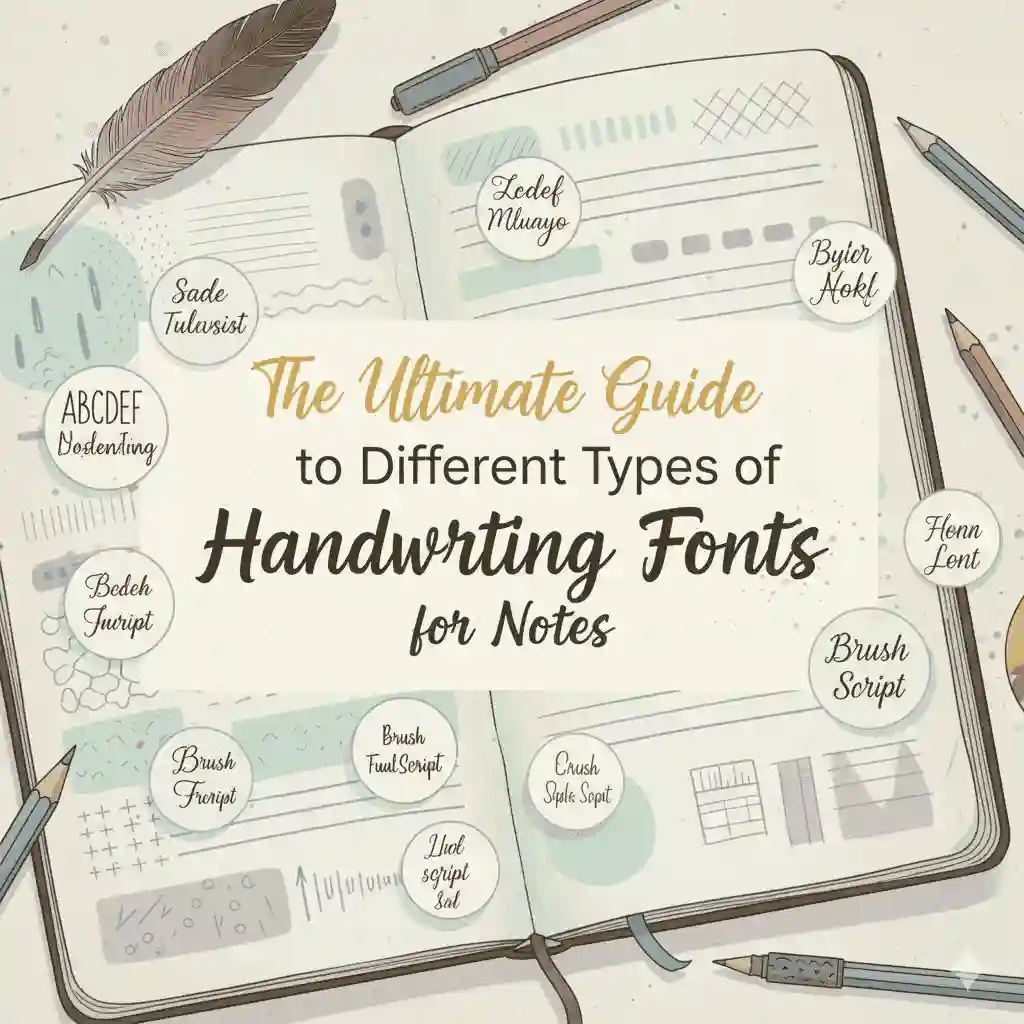
In the digital era, taking notes is no longer limited to pen and paper. Many students, professionals, and creatives now use digital note-taking apps, journals, and planners. Choosing the right handwriting font can make your notes more personal, organized, and visually appealing.
Fonts that mimic real handwriting give your notes a warm, authentic touch while still being easy to read. In this article, we’ll explore the different types of handwriting fonts for notes and help you pick the best one.
2. What Are Handwriting Fonts?
Handwriting fonts are digital fonts designed to replicate the look of natural writing styles. Unlike formal serif or sans-serif fonts, they bring personality and a human touch to your text.
These fonts are often used in:
- Digital planners and journals
- School notes
- Personal diaries
- Creative projects (scrapbooks, invitations, etc.)
3. Different Types of Handwriting Fonts for Notes
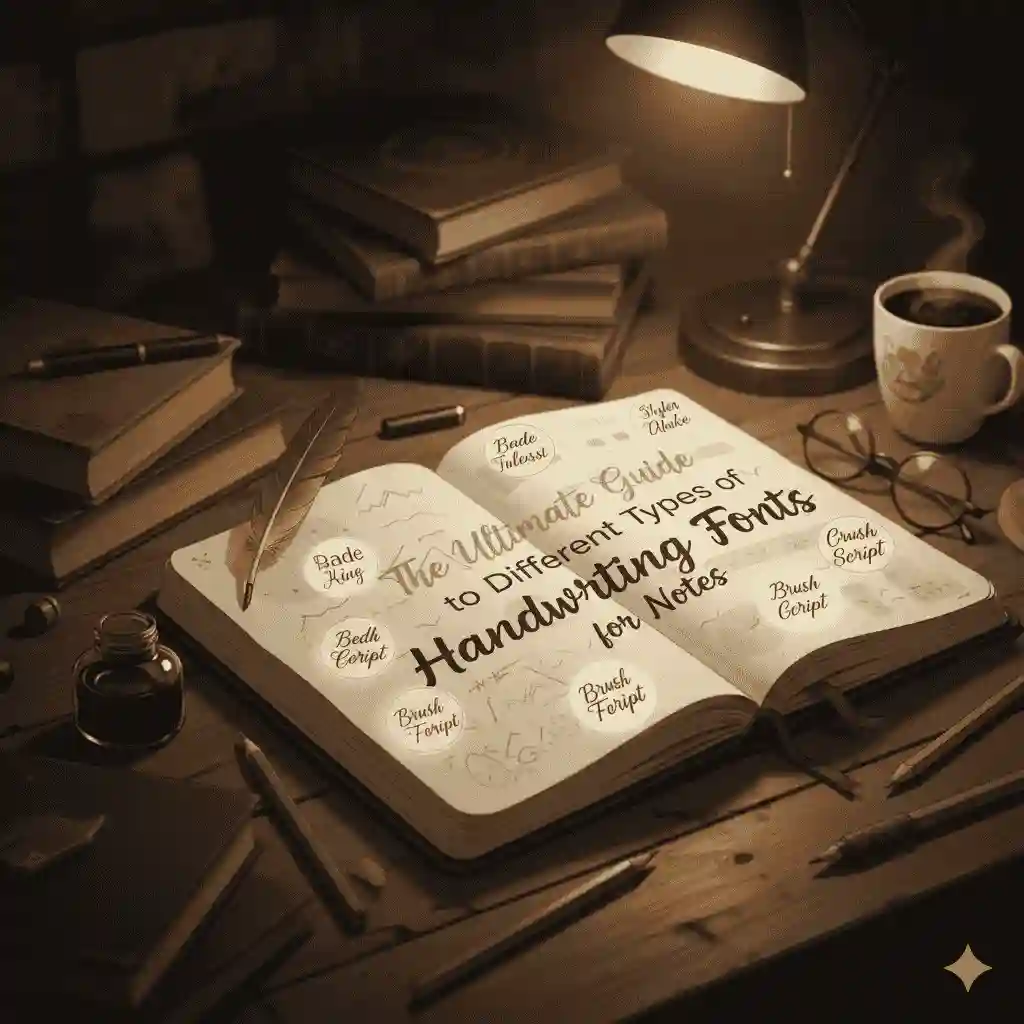
3.1 Script Handwriting Fonts
Script fonts are elegant and flowing, resembling calligraphy. They work well for personal notes, journaling, or adding stylish headers.
- Example: Signature-style script fonts
3.2 Cursive Handwriting Fonts
Cursive fonts connect letters smoothly, making them ideal for realistic handwriting-style notes. They feel natural and personal.
- Example: Traditional cursive school-style handwriting
3.3 Modern Handwriting Fonts
These fonts mix simplicity with a handwritten feel, offering a clean yet casual look. Perfect for digital notes where readability is important.
- Example: Minimal and rounded handwritten styles
3.4 Calligraphy-Inspired Fonts
Calligraphy fonts are more decorative, often used in creative note-taking, planners, or aesthetic journaling. They combine artistry with readability.
3.5 Casual Handwriting Fonts
Casual styles mimic everyday handwriting, giving your notes a friendly and approachable vibe. They’re excellent for quick notes and informal lists.
4. How to Choose the Right Handwriting Font for Your Notes
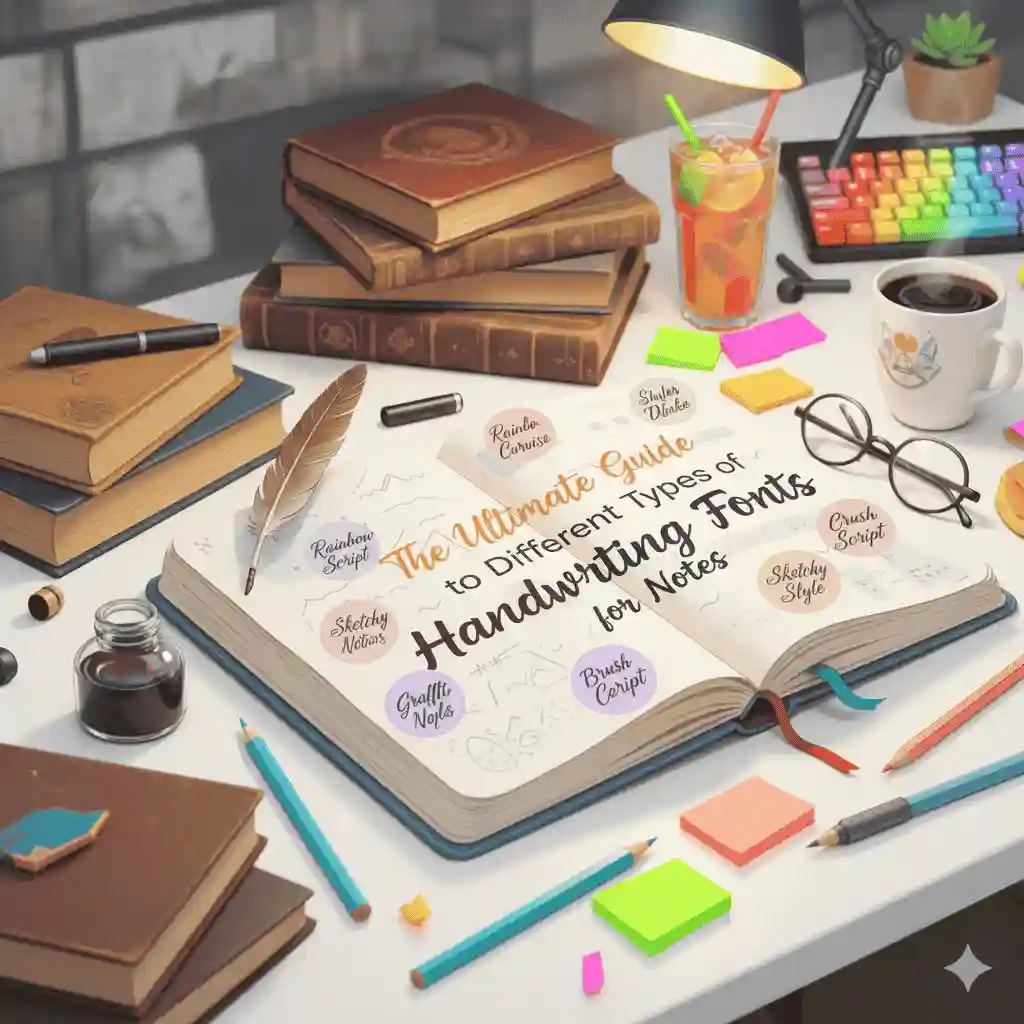
When selecting the best handwriting font, consider:
- Readability: Easy to read in both short and long notes.
- Purpose: Aesthetic journaling vs. study notes vs. professional notes.
- Personality: Choose fonts that reflect your style (playful, elegant, modern).
5. Best Use Cases for Handwriting Fonts in Note-Taking
- Students: Neat cursive or modern handwriting fonts help organize lecture notes.
- Professionals: Script fonts for meeting notes or brainstorming sessions.
- Creatives: Calligraphy-inspired fonts for planners, mood boards, or journaling.
- Digital note apps: Fonts that balance style and clarity for apps like Notion, GoodNotes, or OneNote.
7. Final Thoughts
Using the right handwriting font can transform your notes from plain text into something expressive and enjoyable. Whether you prefer elegant script, casual handwriting, or modern minimalism, there are different types of handwriting fonts for notes that match your personal style.